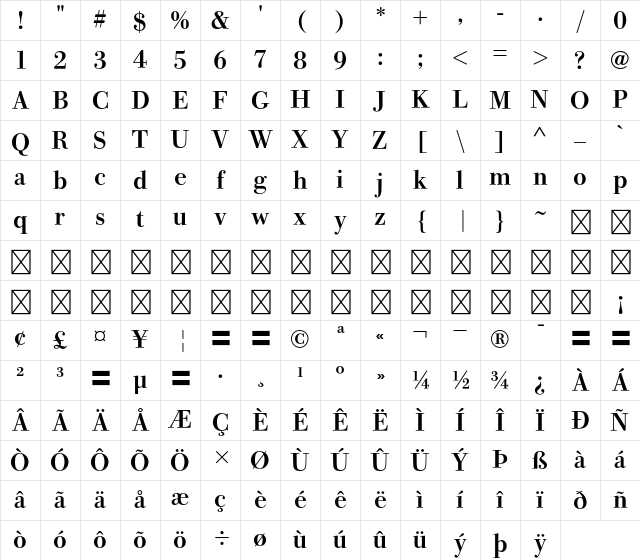
Complete A P-OTF Shuei 4goBKana StdN H glyph index. Displaying only characters natively supported by A P-OTF Shuei 4goBKana StdN H font.
A P-OTF Shuei 4goBKana StdN is a composed and adaptable typeface that performs quietly and consistently across a wide range of design contexts.